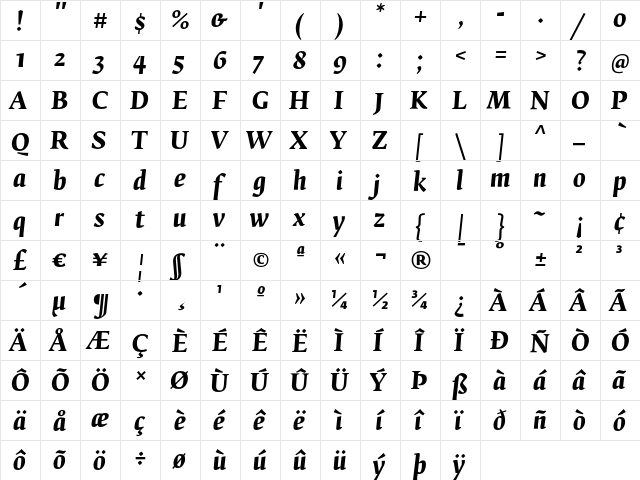
Fedra Serif B Bold Italic Font Preview
Design Context for Fedra Serif B Typeface
Fedra Serif B carries the refined structure of traditional serif typography, with bracketed terminals and considered proportions that communicate credibility and craft. The slanted form adds forward momentum and visual energy. The heavy weight commands attention and anchors typographic hierarchies.
Pro Tip: Use Fedra Serif B for editorial body copy and considered headline work. Pair with a neutral sans for UI elements or captions to create a classic hierarchy.